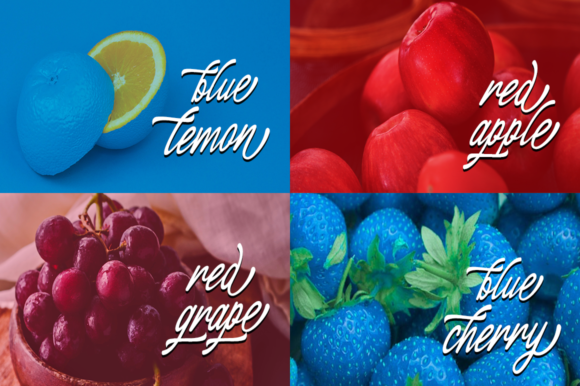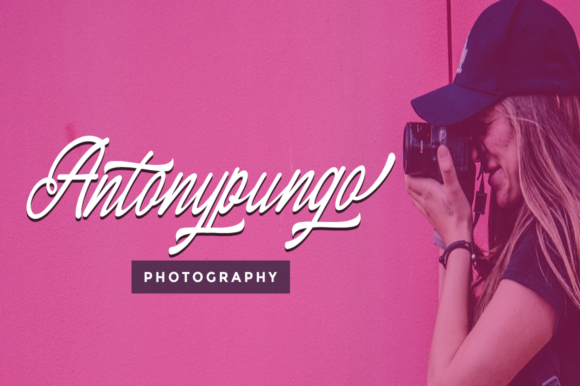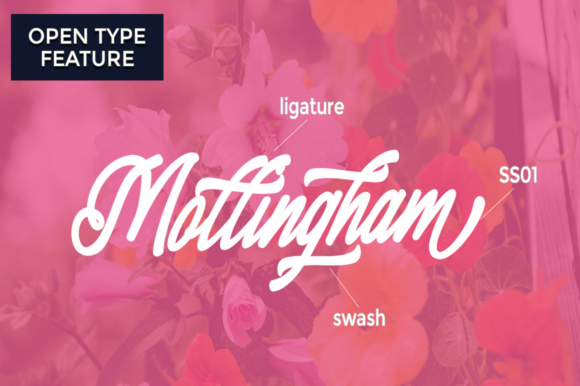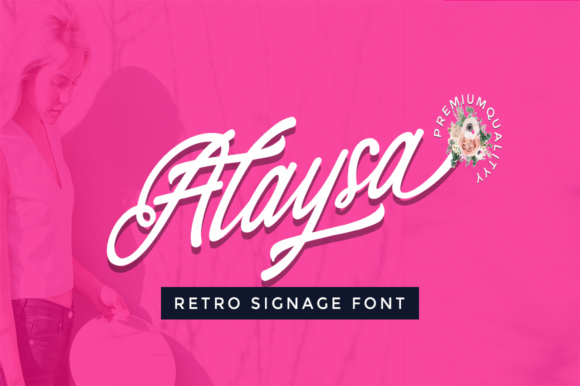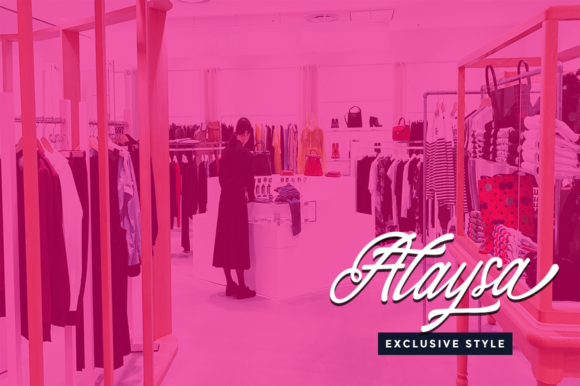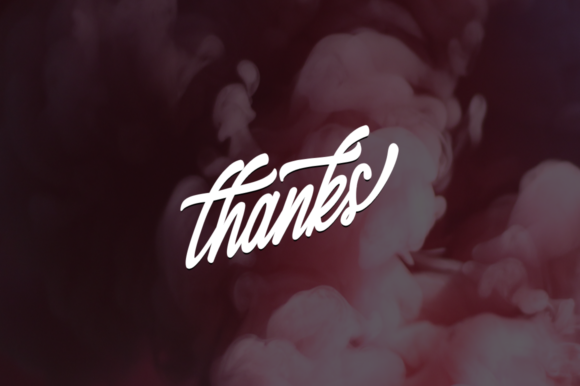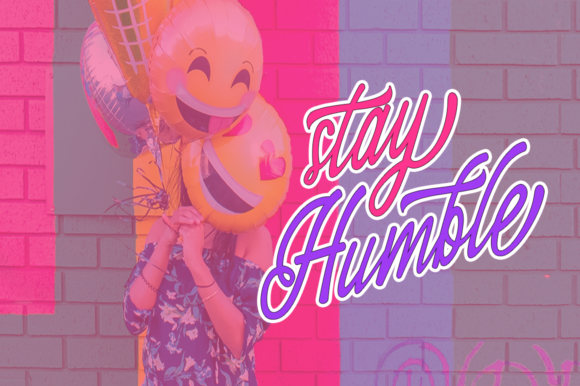
Introducing Alaysa Font: Elevate Your Designs with a Retro Handwritten Twist
In the world of design, fonts play a pivotal role in conveying messages, evoking emotions, and creating lasting impressions. For designers and crafters looking to infuse their projects with a unique blend of retro charm and modern cleanliness, Alaysa Font emerges as a game-changer. This article delves into the characteristics, benefits, and creative applications of Alaysa Font, a retro handwritten font that boasts a bold and clean feel, capable of transforming any design project into an authentic standout.
The Essence of Alaysa Font
Alaysa Font is a thoughtfully crafted typeface that marries the warmth of handwritten elements with the clarity and impact of bold, clean lines. Its retro essence pays homage to the classic fonts of the past, while its contemporary twist ensures it remains highly legible and versatile. This font is meticulously designed to cater to a wide array of design needs, from branding and advertising to packaging and digital content creation.
Key Features of Alaysa Font
- Retro Handwritten Style: Alaysa Font embodies the nostalgic appeal of handwritten typography, offering a personal touch that digital fonts often lack.
- Bold and Clean Feel: Despite its retro inspiration, Alaysa boasts a boldness and cleanliness that make it highly readable and impactful, suitable for both headings and body text.
- Versatility: Its unique blend of classic and modern elements makes Alaysa incredibly versatile, fitting for a myriad of design projects ranging from vintage-themed branding to contemporary advertising.
- Authentic Standout: Alaysa is designed to make your designs stand out. Its distinctive style ensures that your project doesn’t just blend into the background but captures attention and leaves a lasting impression.
Alaysa Font offers numerous benefits for designers and crafters looking to elevate their work:
- Time-Saving: With Alaysa, you have instant access to a professional-grade font that would typically require hours of design work to replicate.
- Consistency: Using a unique font like Alaysa helps in creating a consistent visual brand identity across different platforms and materials.
- Emotional Connection: The retro handwritten style of Alaysa can evoke a sense of nostalgia and warmth, helping to create an emotional connection with your audience.
- Wide Application: Whether you’re working on a logo, website, packaging, or social media content, Alaysa can adapt to various design needs, making it a valuable addition to your typography arsenal.
Creative Applications of Alaysa Font
The creative possibilities with Alaysa Font are vast. Here are a few ideas to get you started:
- Branding and Logo Design: Use Alaysa to create memorable logos and brand identities that stand out from the competition.
- Marketing Materials: Elevate your brochures, flyers, and posters with a font that grabs attention and communicates your message effectively.
- Digital Content: Enhance your website, blog, or social media graphics with Alaysa, adding a touch of personality to your digital presence.
- Packaging Design: Make your product packaging more appealing and distinctive with Alaysa, helping your product to stand out on store shelves.
Alaysa Font is a powerful tool for designers and crafters aiming to infuse their projects with a unique retro handwritten style, combined with boldness and cleanliness. Its versatility, emotional appeal, and wide range of applications make it an excellent choice for anyone looking to create standout designs. Whether you’re working on a branding project, marketing materials, digital content, or packaging, Alaysa is poised to become your go-to font for creating authentic and memorable designs.